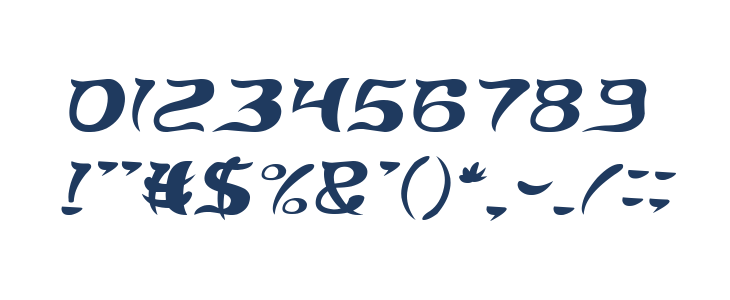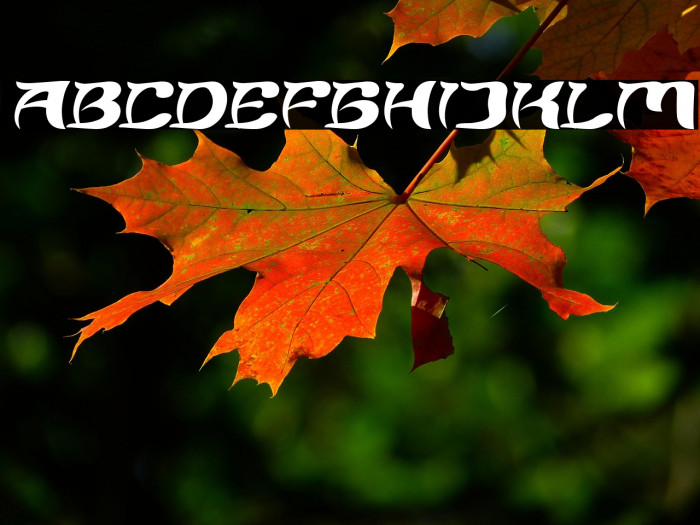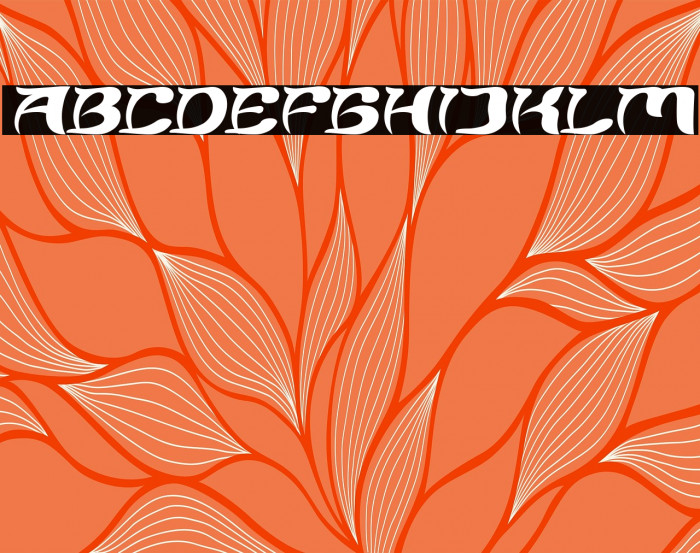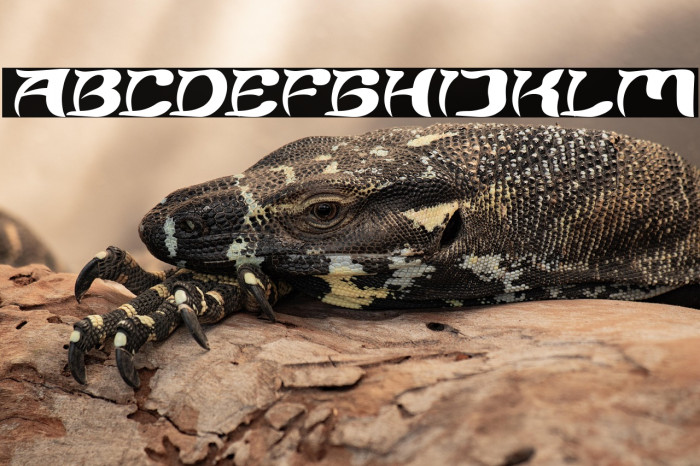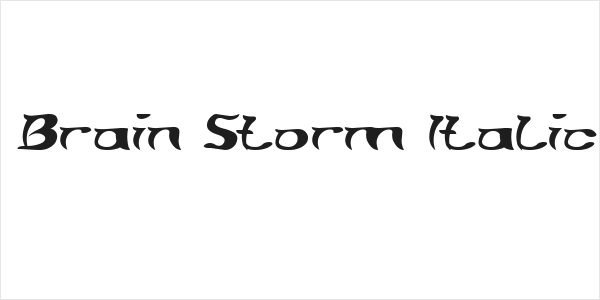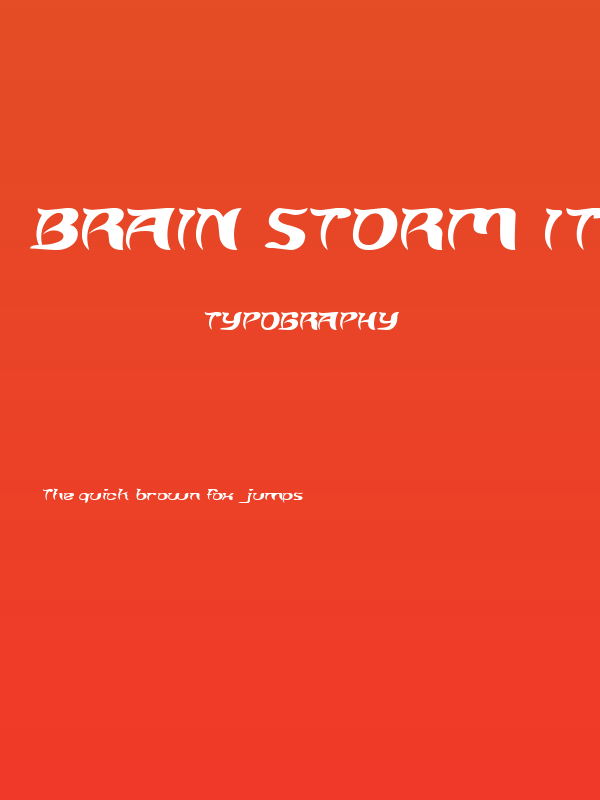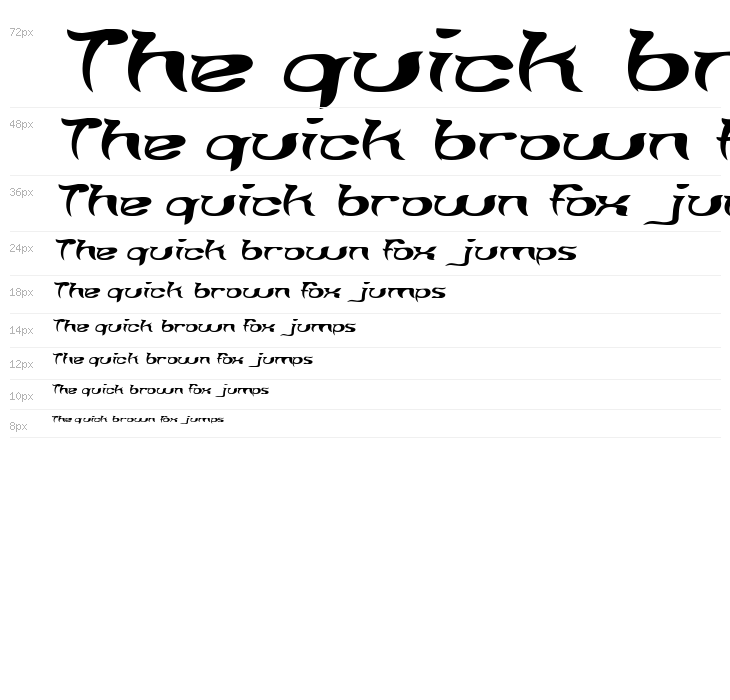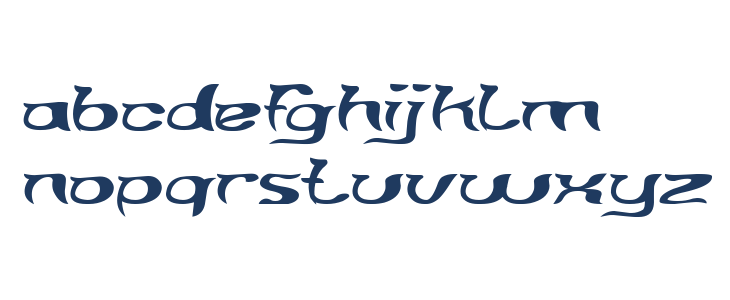
Brain Storm Italic Font
Brain Storm Italic Description
This font exhibits a bold and dynamic style with a strong emphasis on angular and sharp edges, giving it a distinct and edgy appearance. The characters are designed with a flowing, italicized form that adds a sense of movement and energy. The uppercase letters are particularly striking, with exaggerated curves and points that create a dramatic visual impact. The lowercase letters maintain a consistent style, complementing the uppercase with their own unique flair. Numbers and special characters are crafted with the same attention to detail, ensuring a cohesive look across all elements. This font's boldness and unique style make it ideal for projects that require a strong visual presence.
| Proposed Projects | Ideal for branding, posters, album covers, and any design requiring a bold, edgy look. |